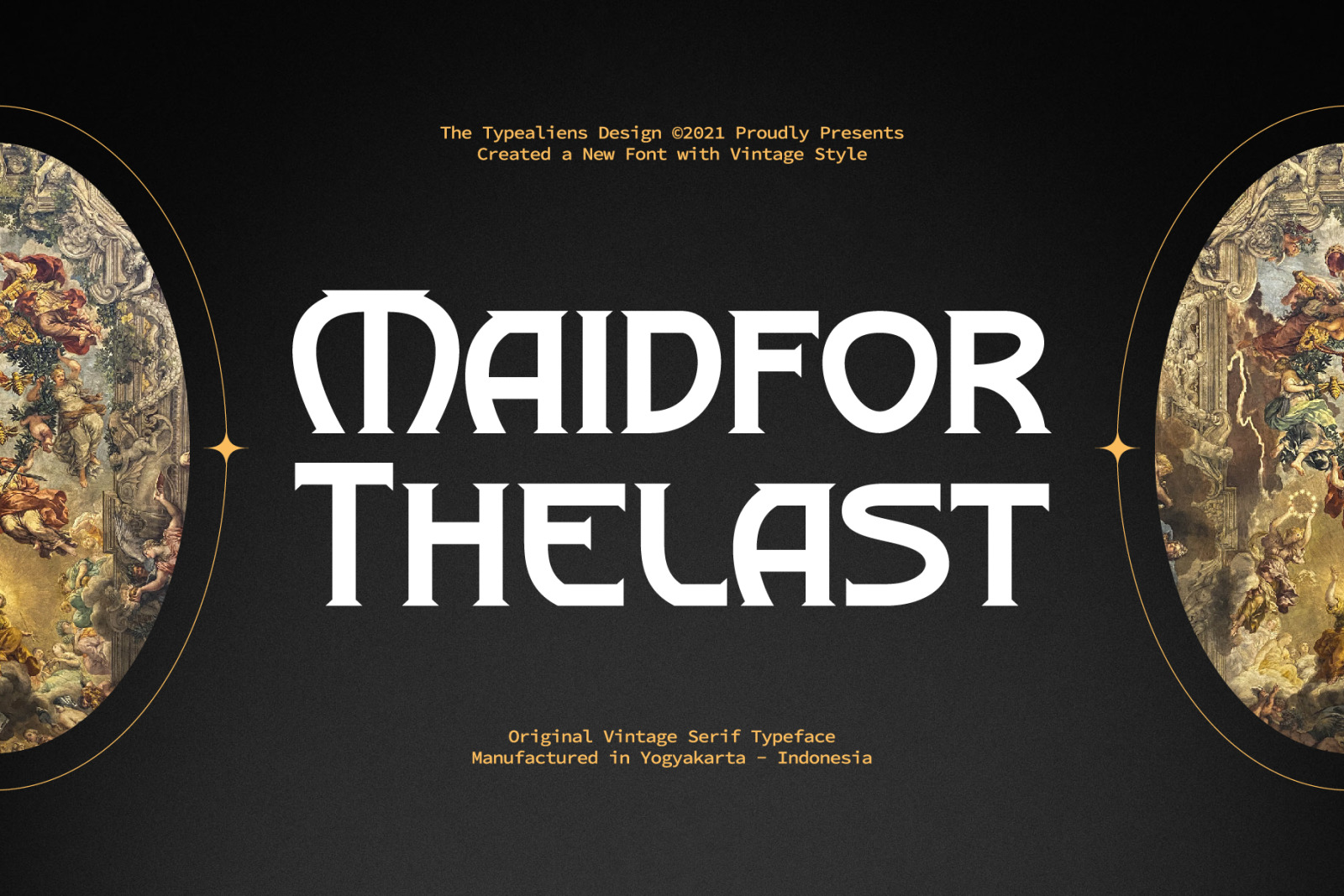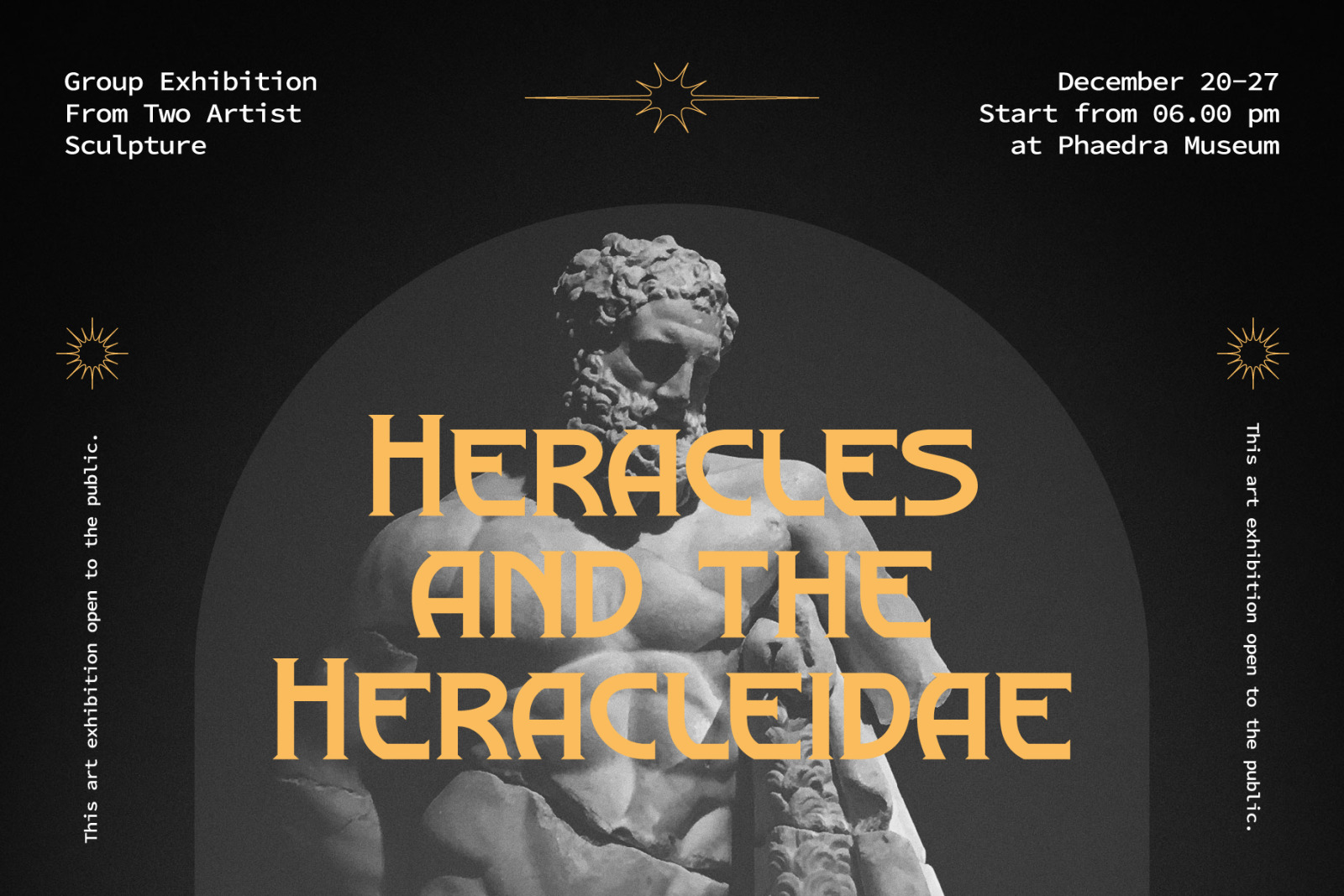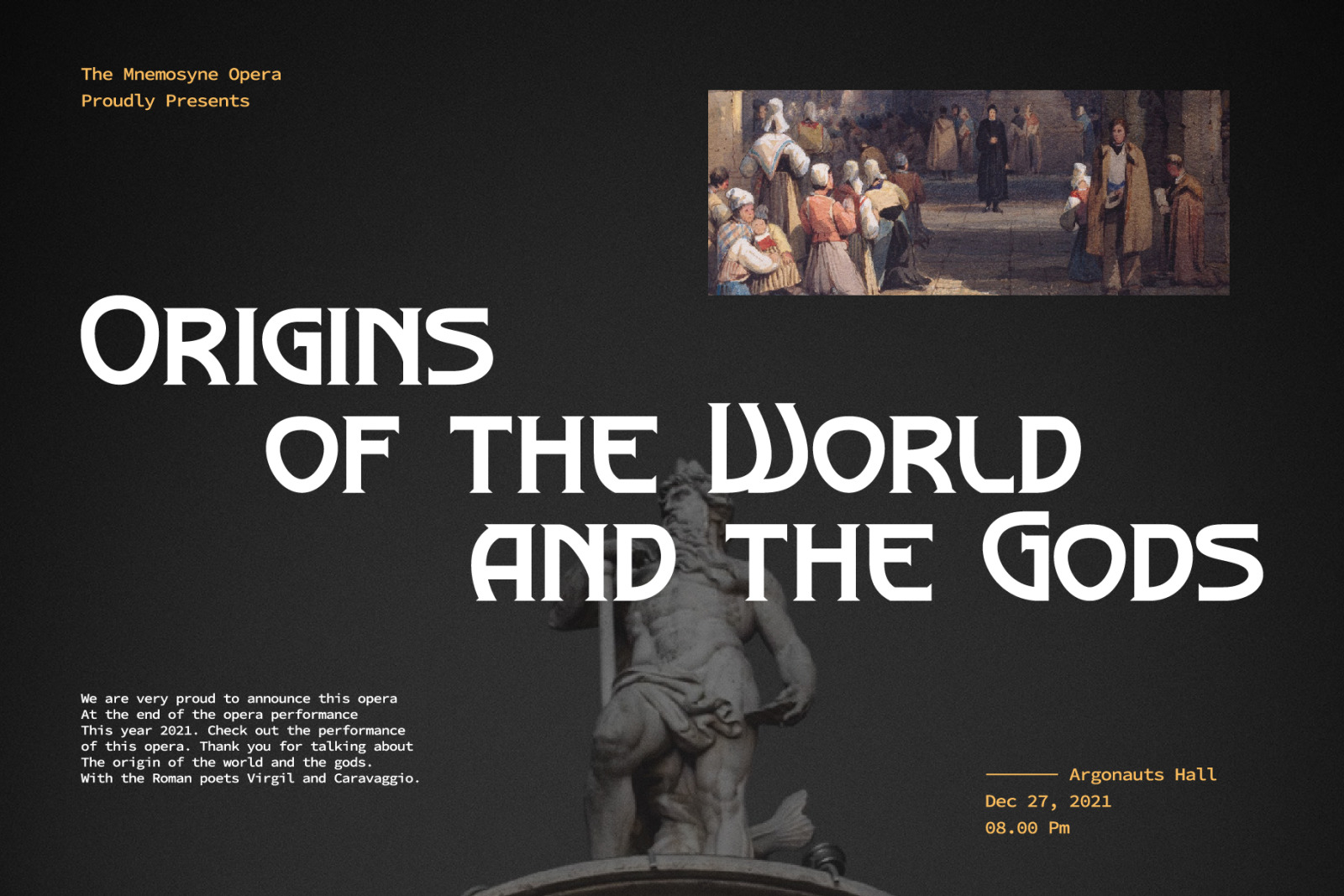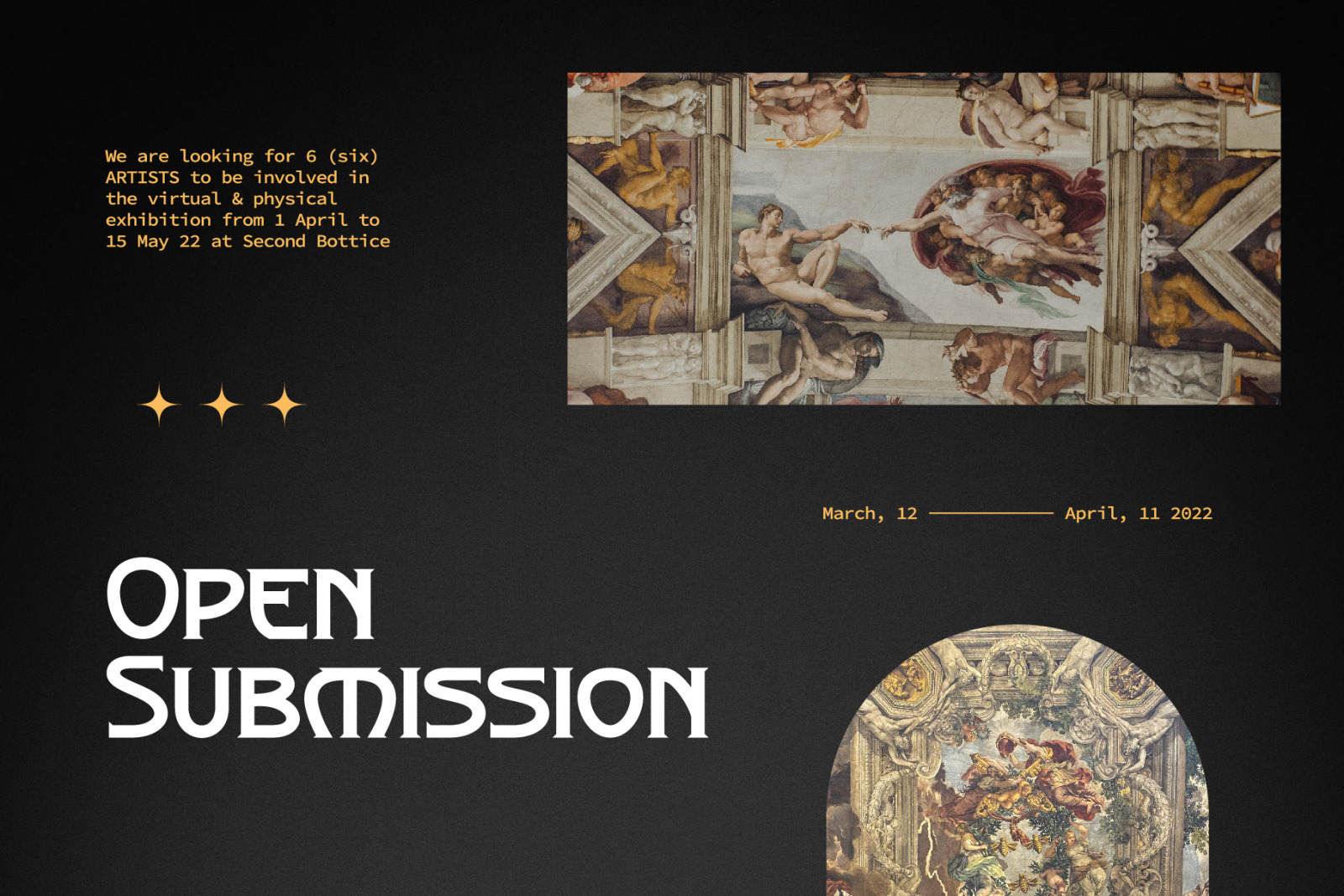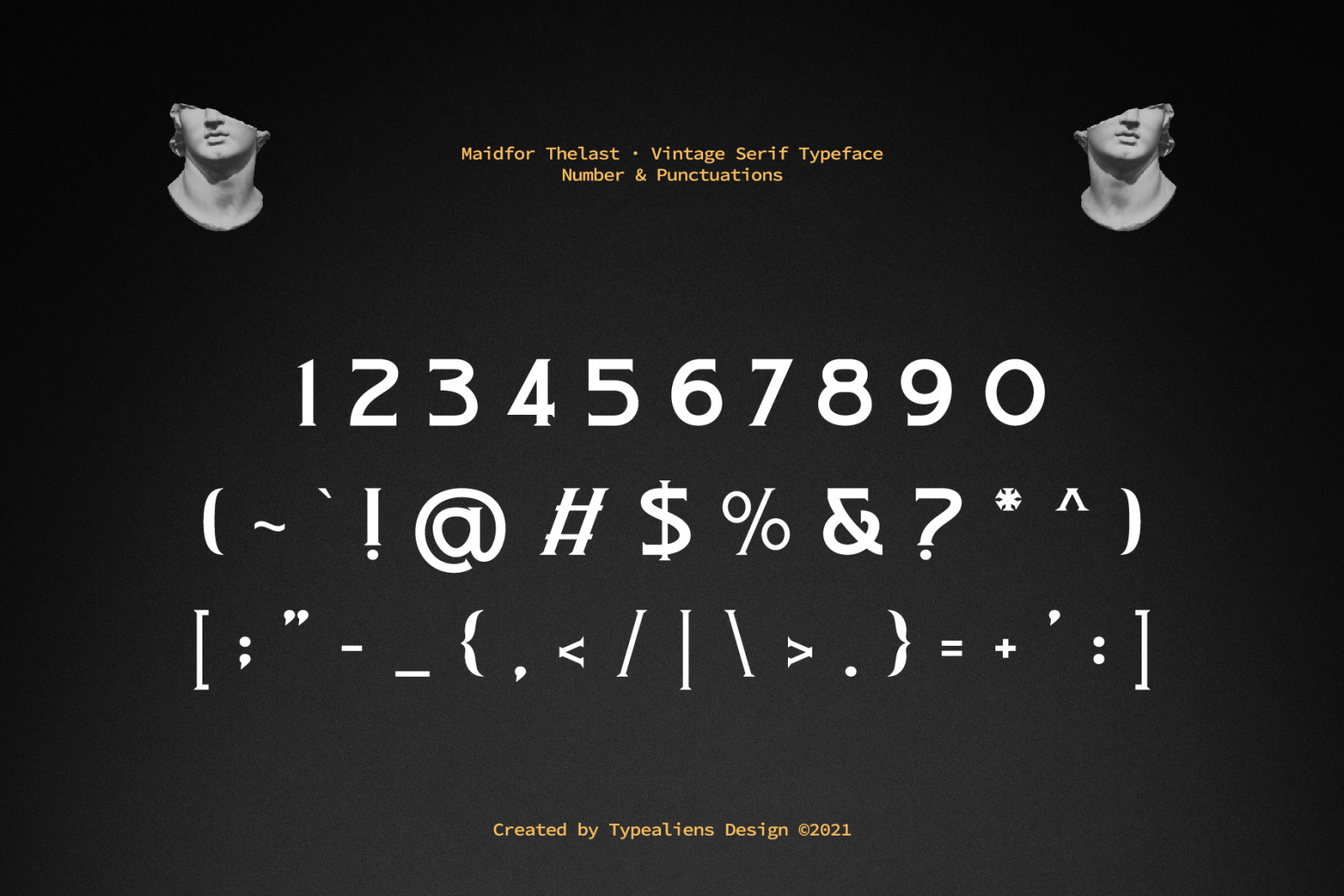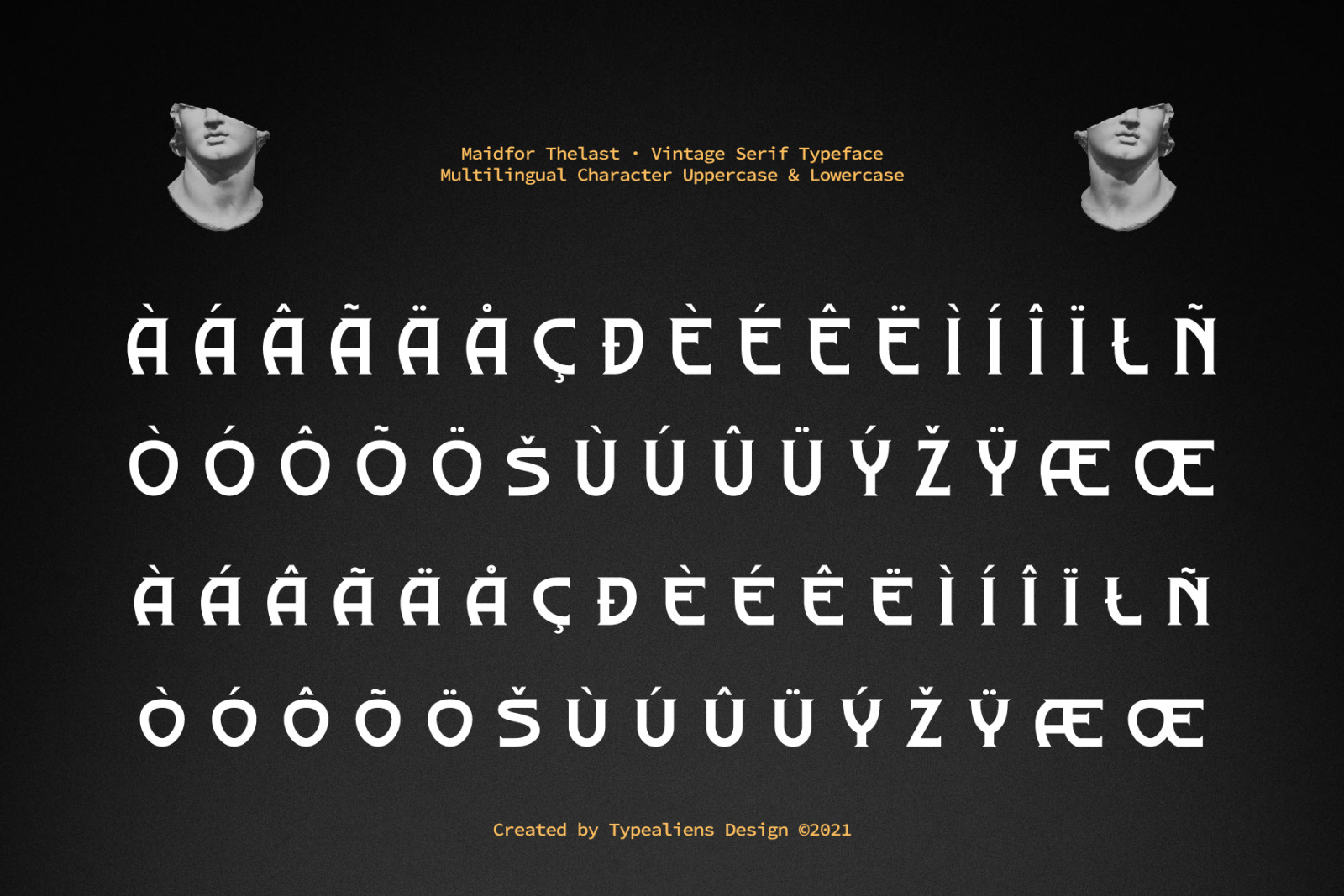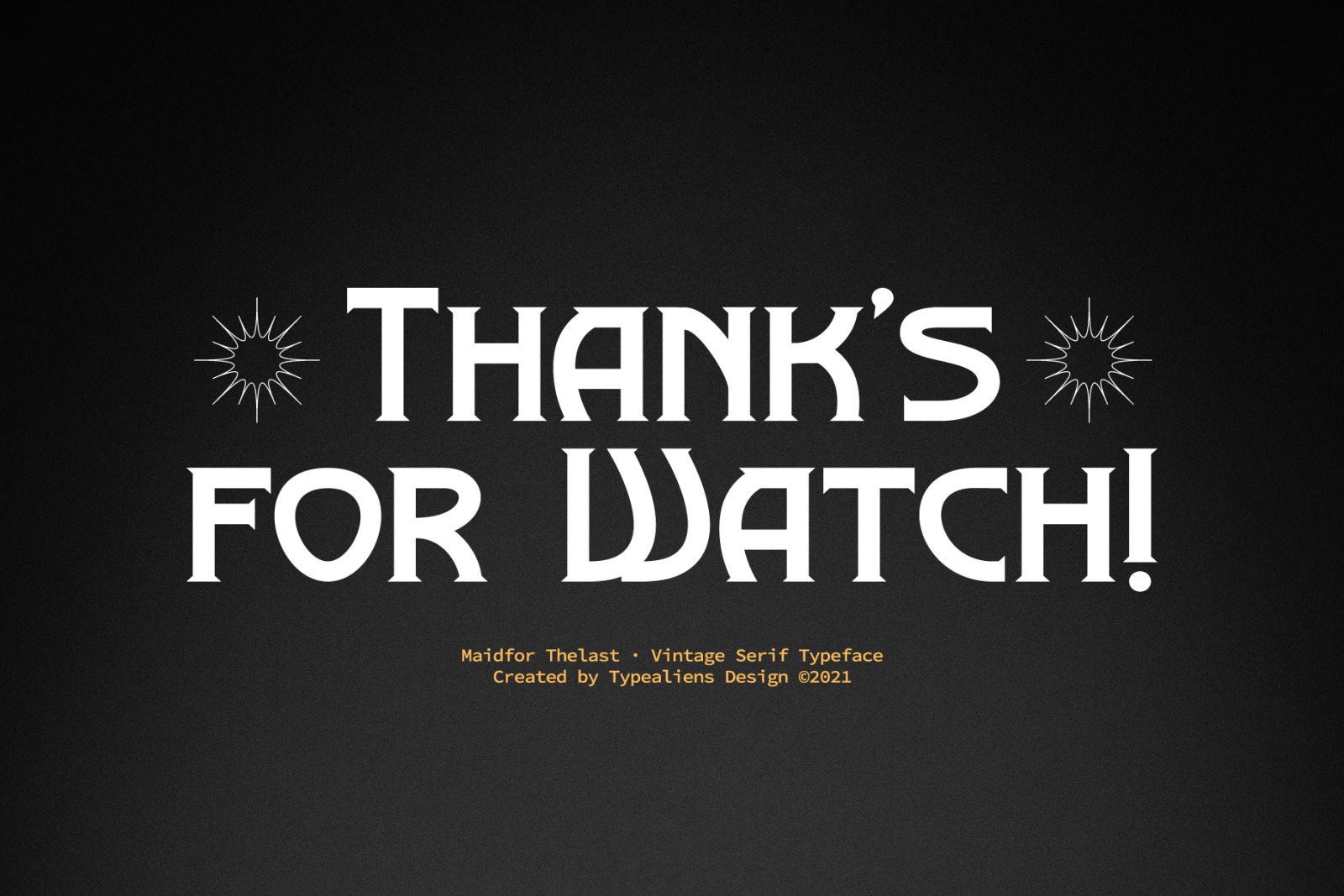
Maidfor Thelast Font
MAIDFOR THELAST is a display font based on a serif font. A unique font with a quite artsy style, it is perfect for a magazine headline or title on an art exhibition poster.